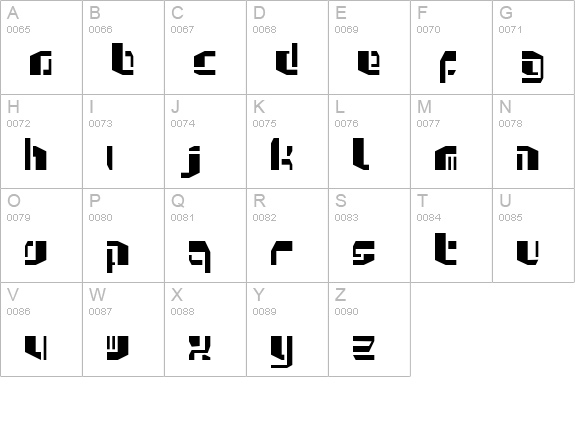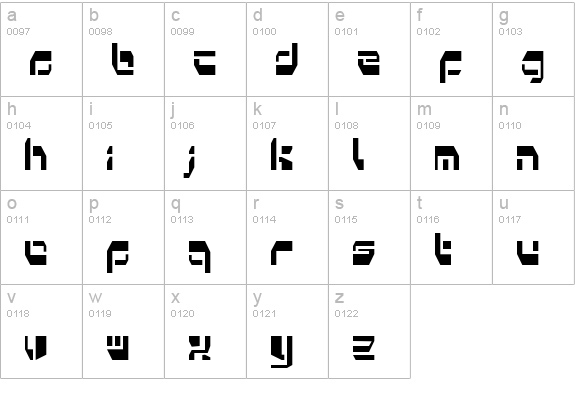
Kosmonaut Font Details
Kosmonaut font is a modern and sleek typeface that embodies a futuristic aesthetic with its clean lines and geometric shapes. This versatile font is perfect for creating eye-catching designs for various projects such as branding, logos, posters, and more. Its bold and distinctive style is sure to make a statement and grab attention. What sets Kosmonaut font apart is that it is not only visually striking but also free to use. Yes, you heard it right - this amazing font is freely available to download at FontsMarket.com. So, designers and creatives can easily access and utilize this unique font in their work without any restrictions. With its unique design and accessibility, Kosmonaut font is a must-have addition to any designer's toolkit. Stand out from the crowd and elevate your designs with this modern and dynamic typeface today!